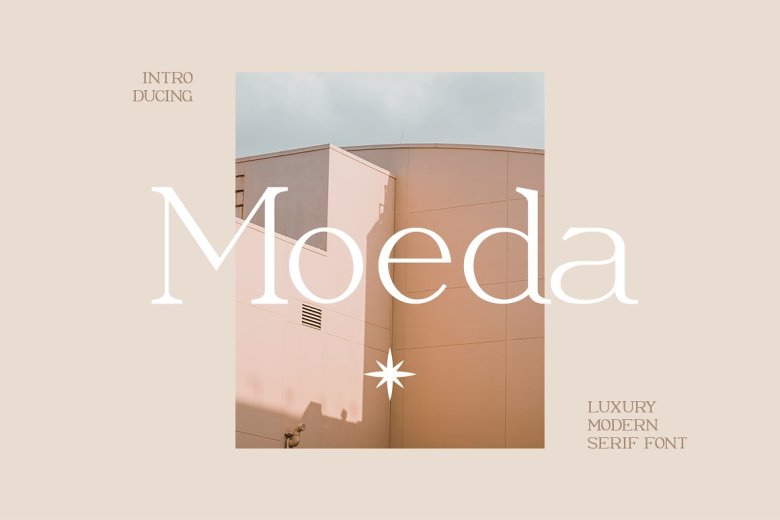
Moeda Font
Moeda is a serif look with simple, clean, and formal elegance. Specially designed for elegant themed projects, it is perfect for creating simple and clean lifestyle designs, such as logos, titles, magazines, and more.